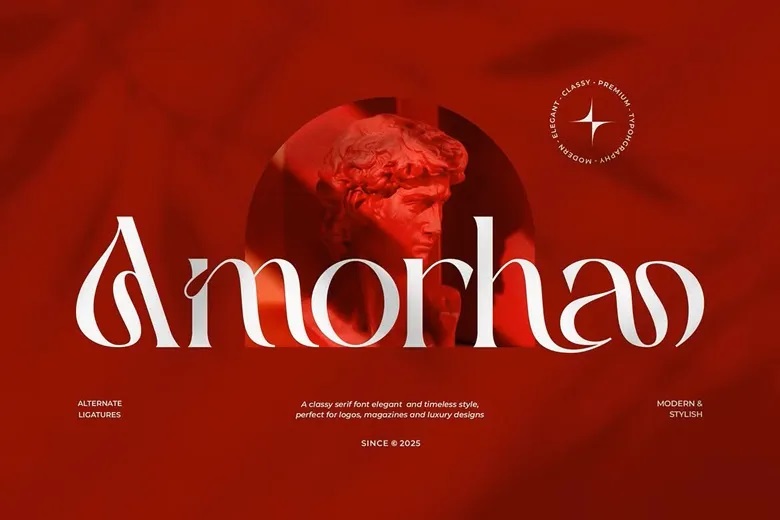
Amorha Font
Amorha is a stylish serif font designed for branding and logo projects. Its refined look adds a touch of beauty and class to your designs. You can use this font for invitations, logos, movie titles, business cards, book covers, brand names, and many other creative projects.
Amorha’s smooth serif style brings a sense of sophistication to your work. Its unique ligatures help your projects stand out.
Amorha Serif Font